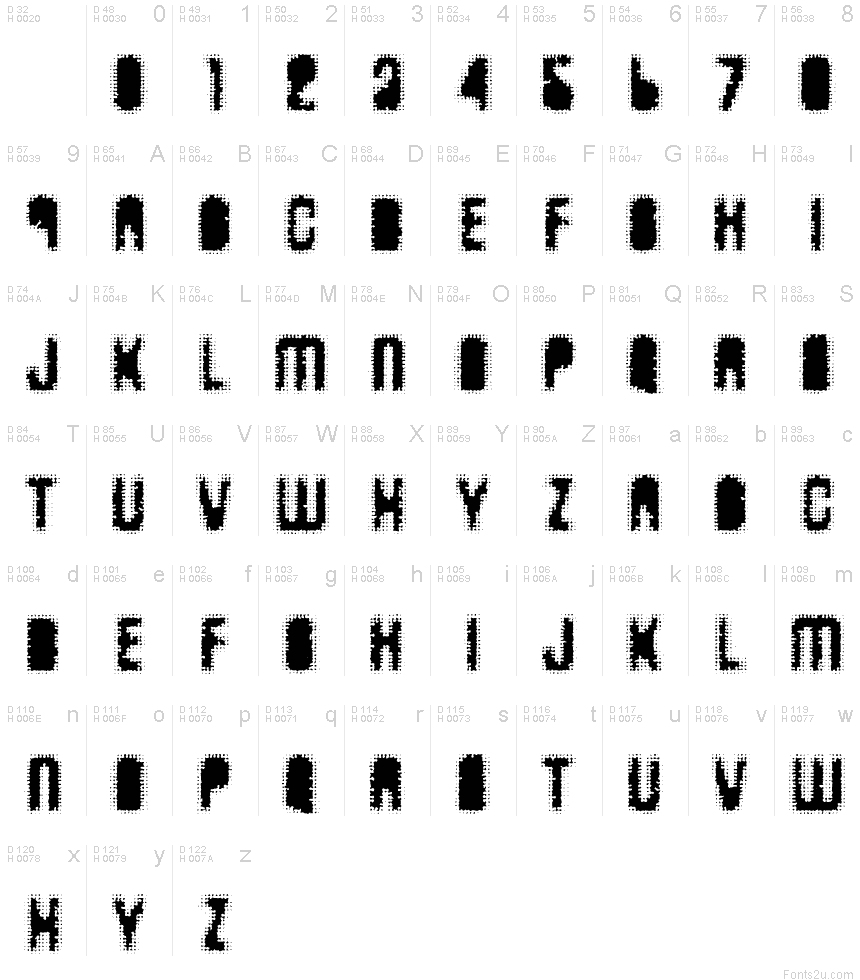
AntKiller
Ant Killer font is a free eroded display typeface that looks like it’s been eaten away grain by grain. The tall, narrow letters are punched through with tiny, evenly spaced holes, creating a gritty, almost swarm-like texture that feels restless and alive. It’s bold enough to shout, but the perforated edges keep it raw and unsettling, like a stencil that’s been overused on rough concrete.
Using Ant Killer, you get instant distressed attitude without needing extra textures or filters. This free font works beautifully for horror posters, punk or underground flyers, game titles, Halloween graphics, album covers, and bold YouTube thumbnails. Set it large to let the speckled erosion read clearly, and pair it with a clean, understated sans serif so the wild texture has room to breathe.